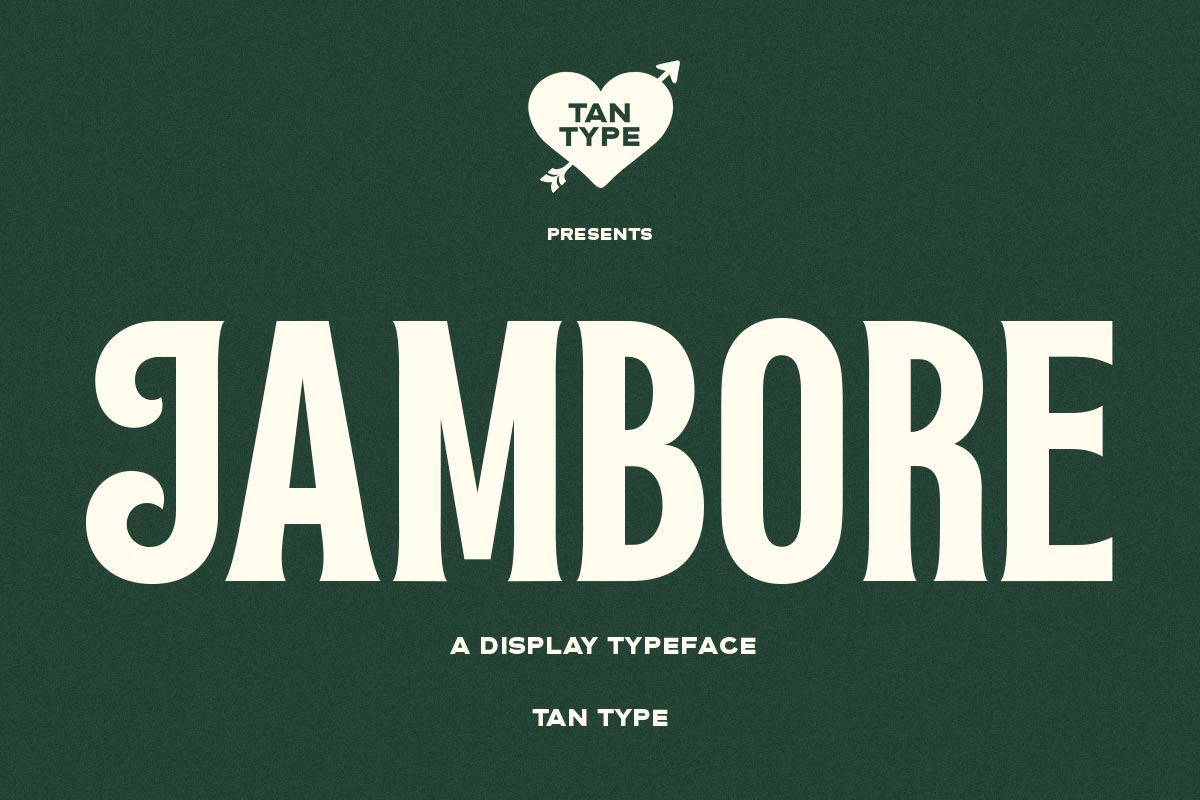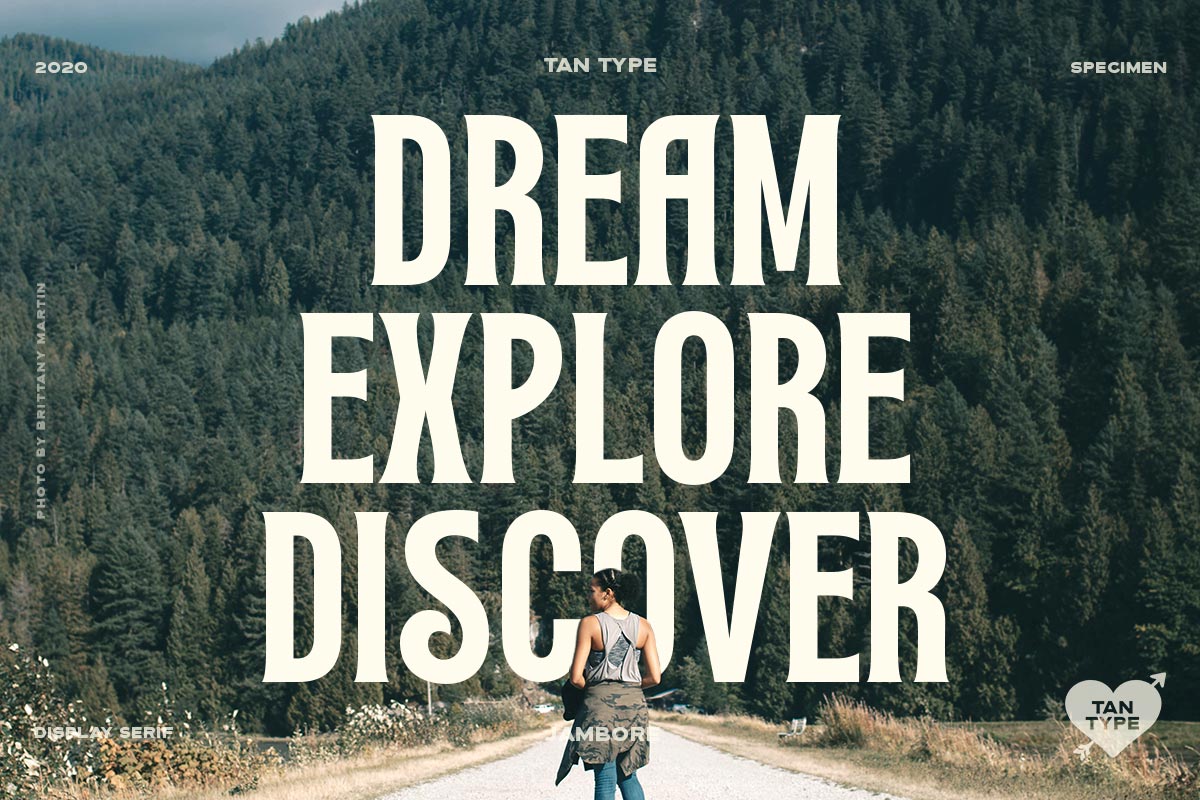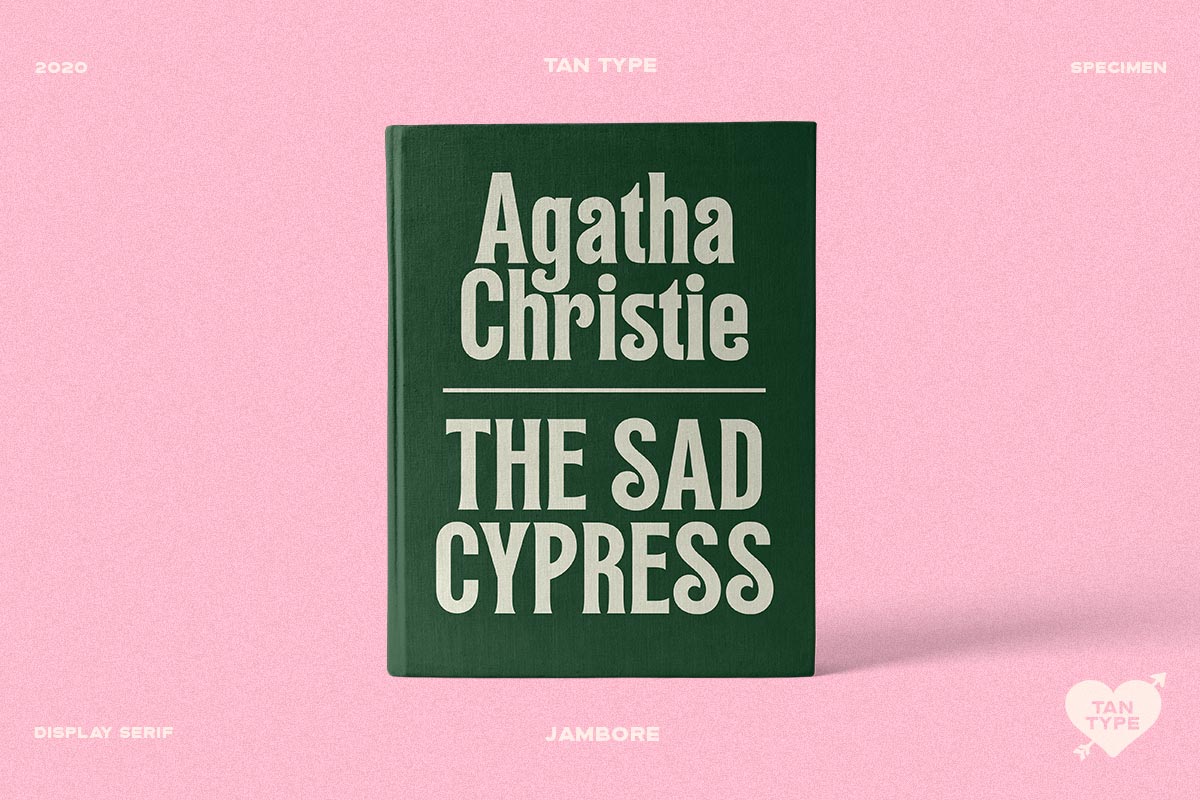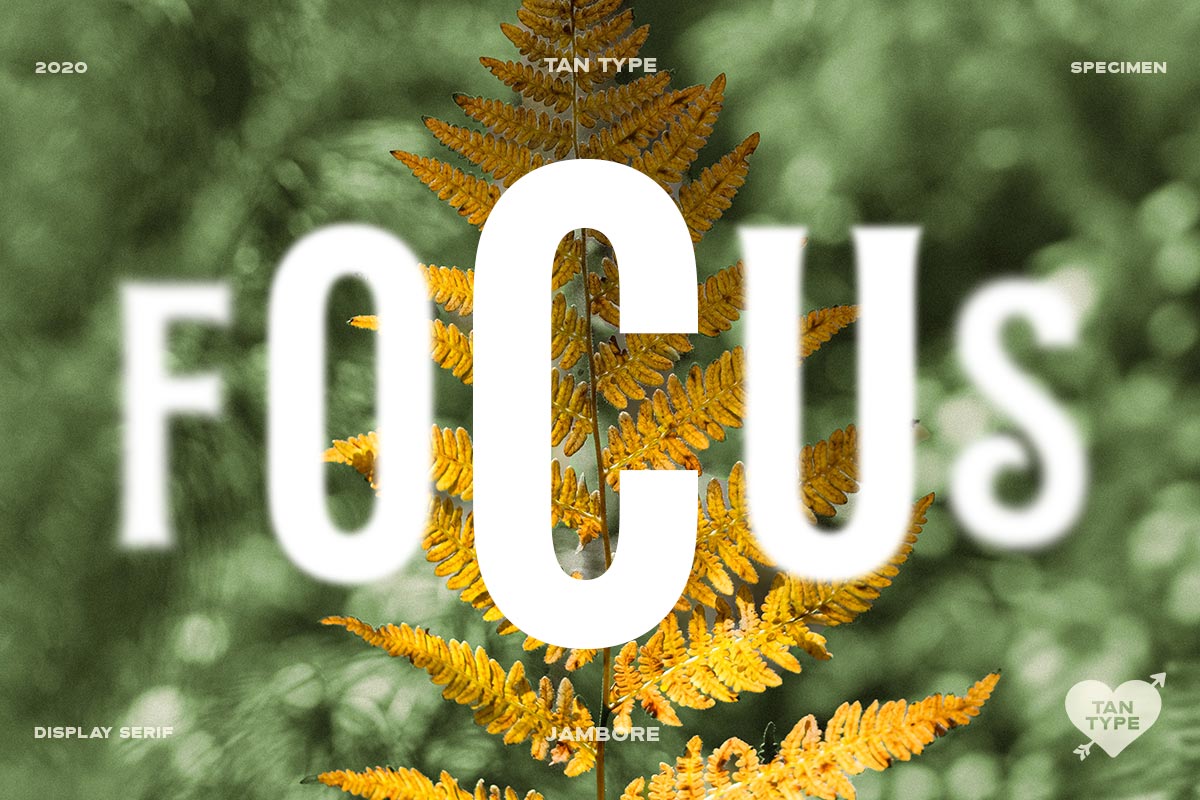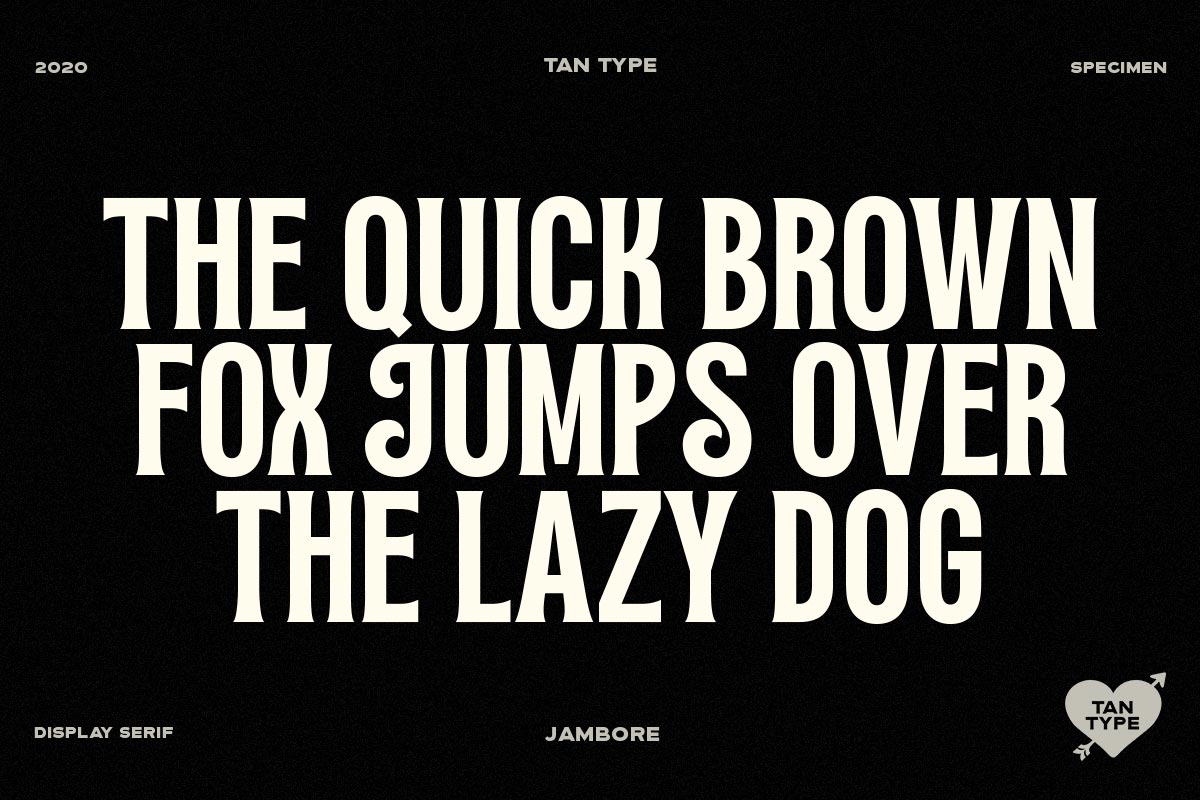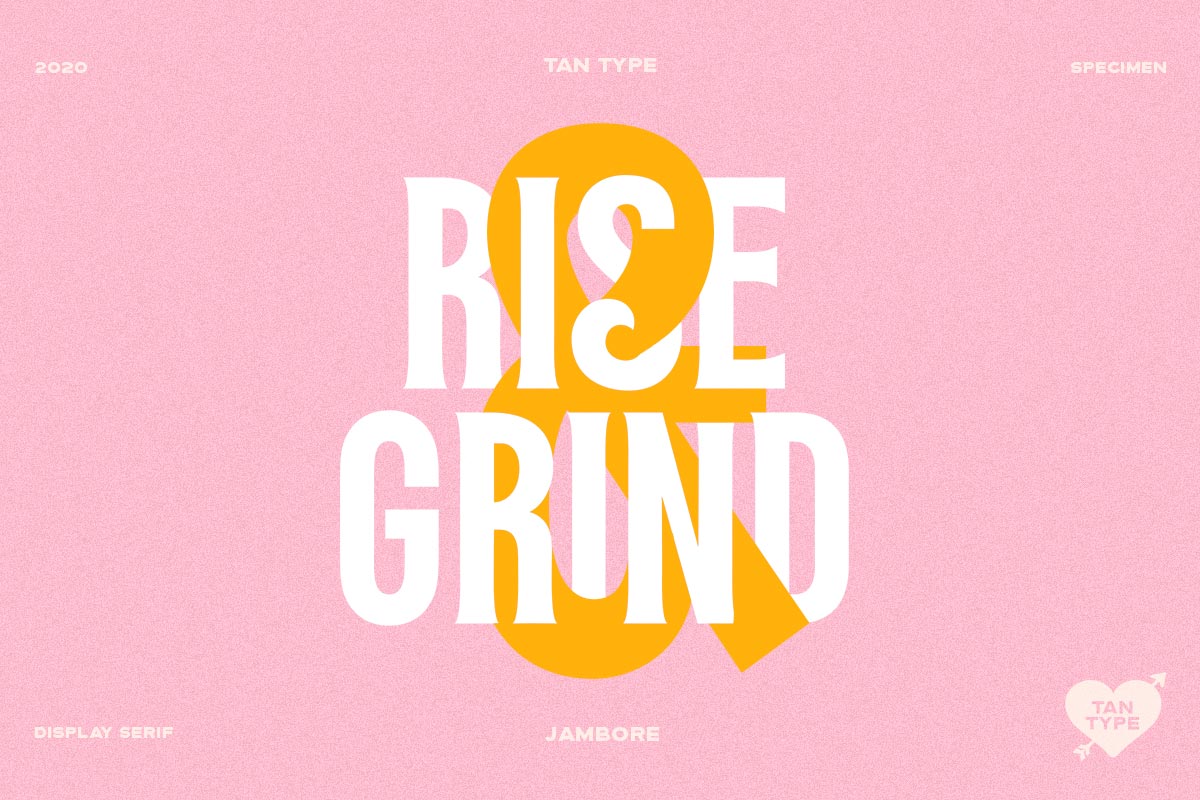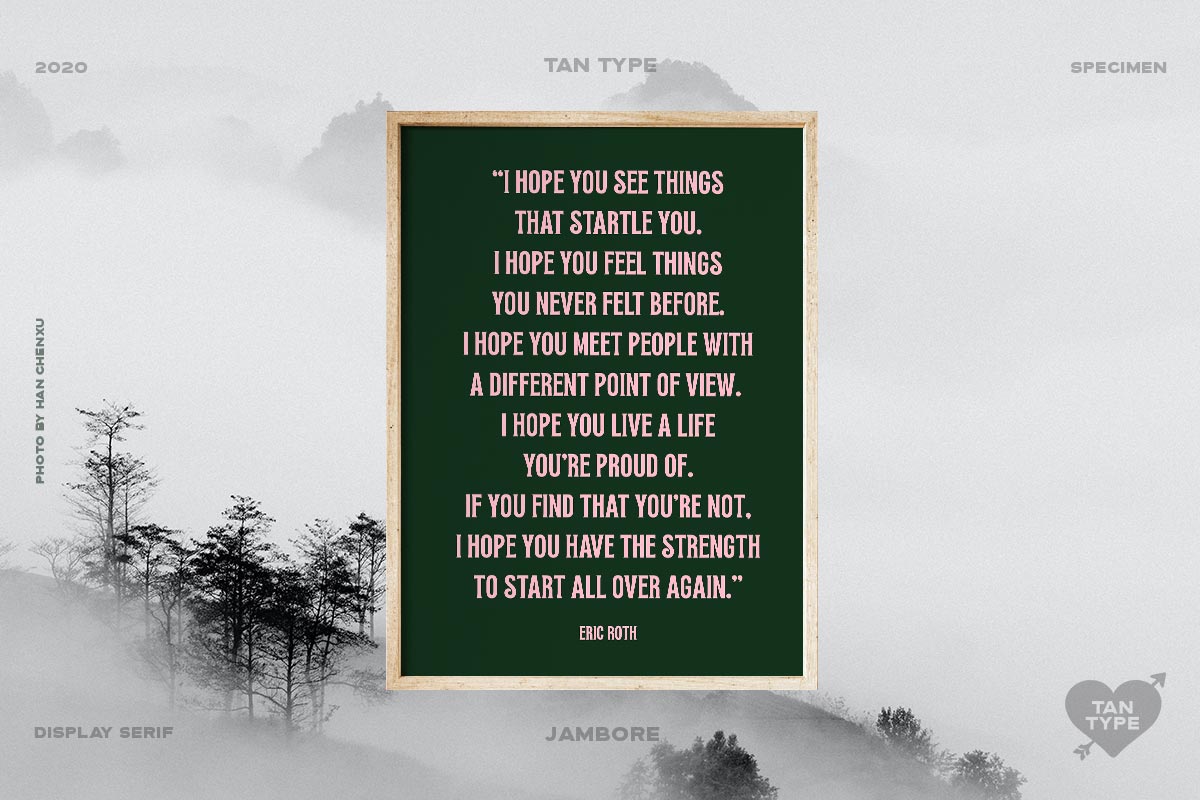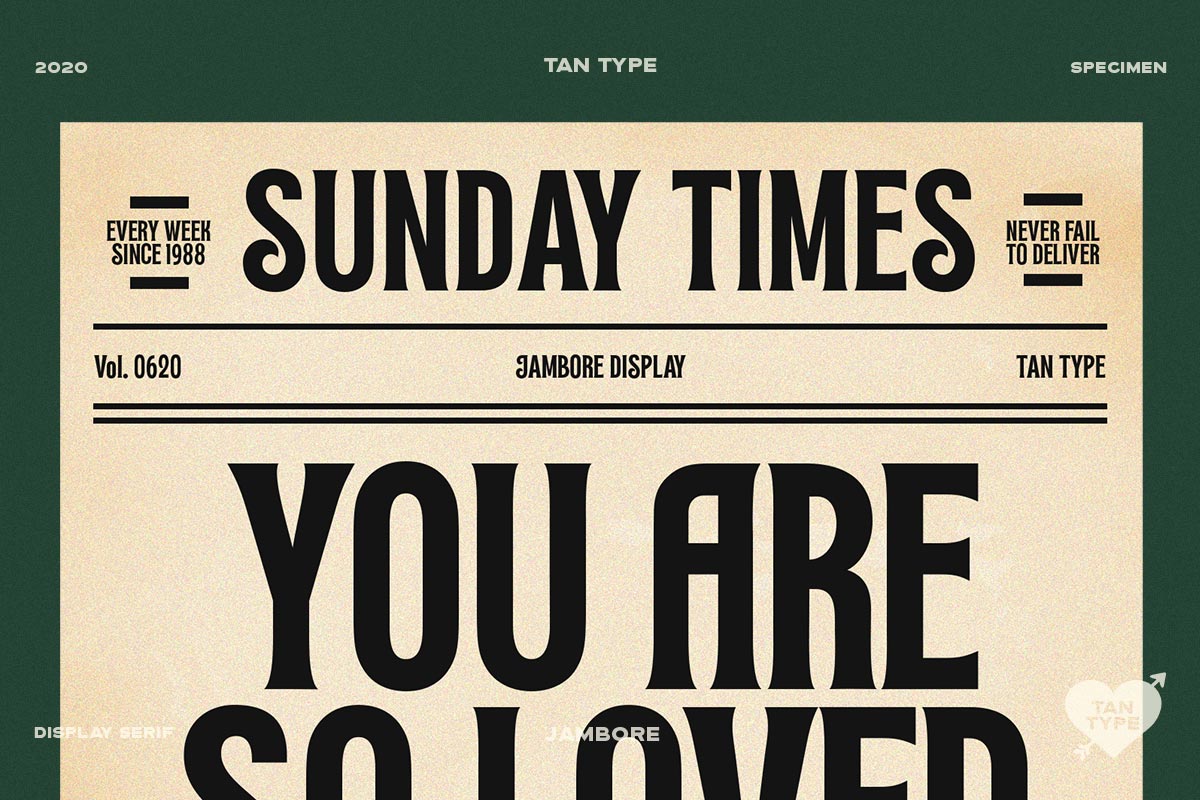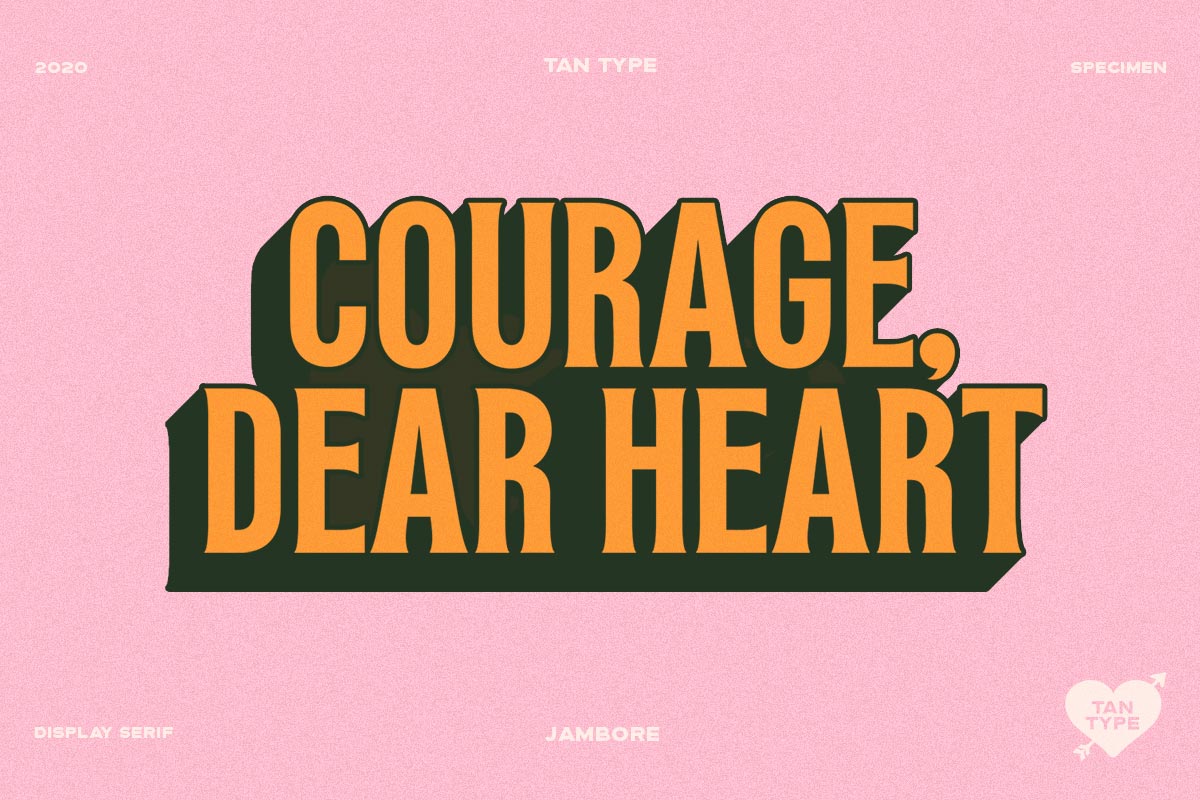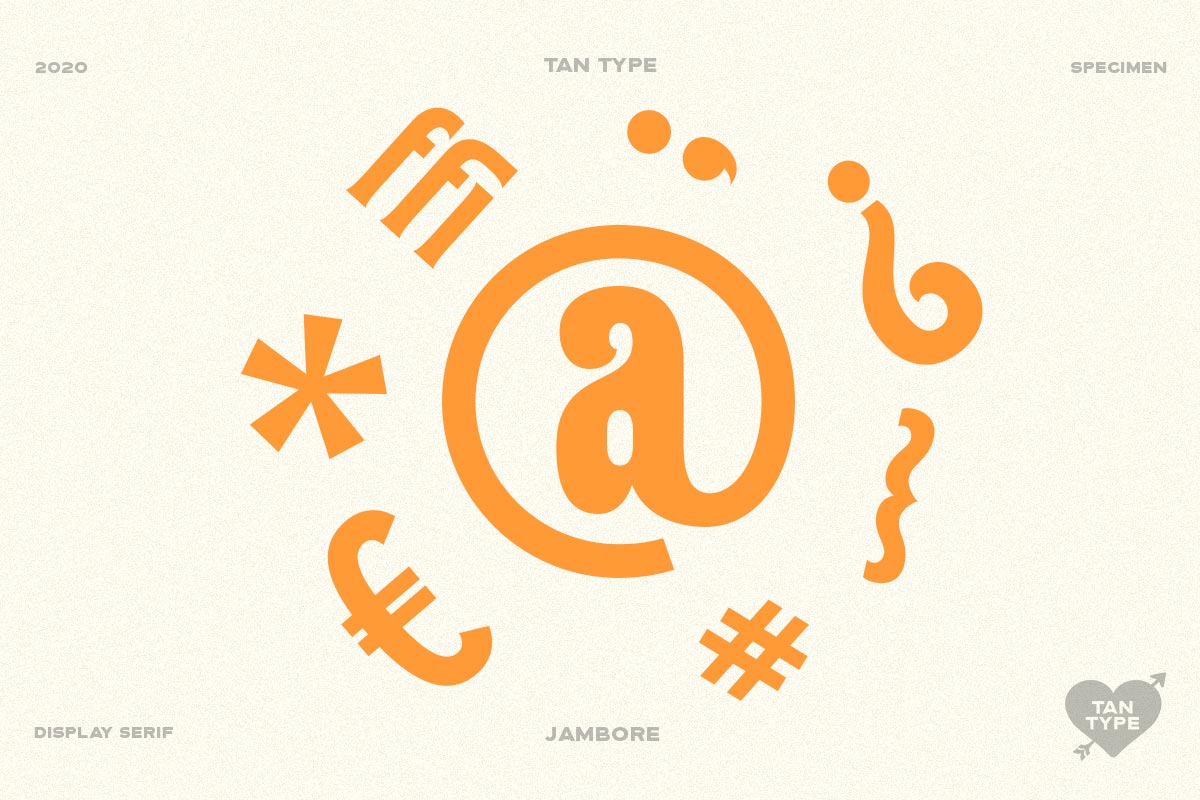
JAMBORE is a bold and charismatic display typeface with vintage-inspired curves and a strong personality. Its tall, confident letterforms paired with unique flared terminals give it a retro yet refined charm. Jambore delivers visual impact with a playful twist.